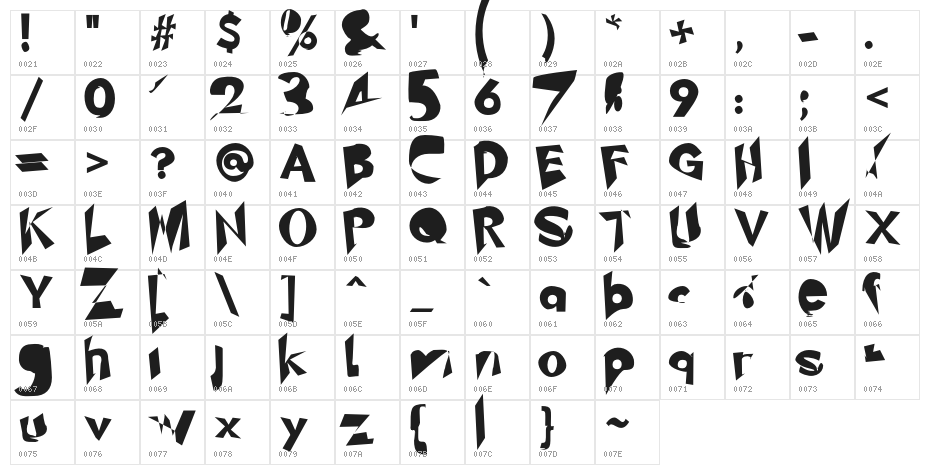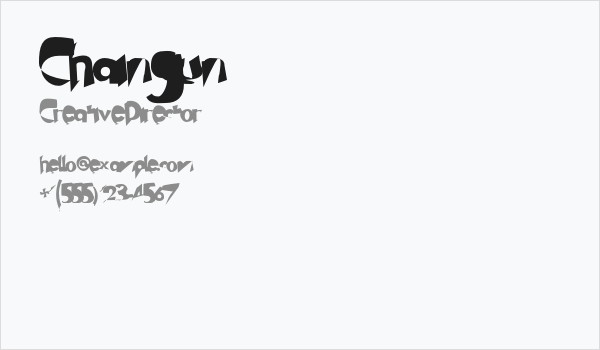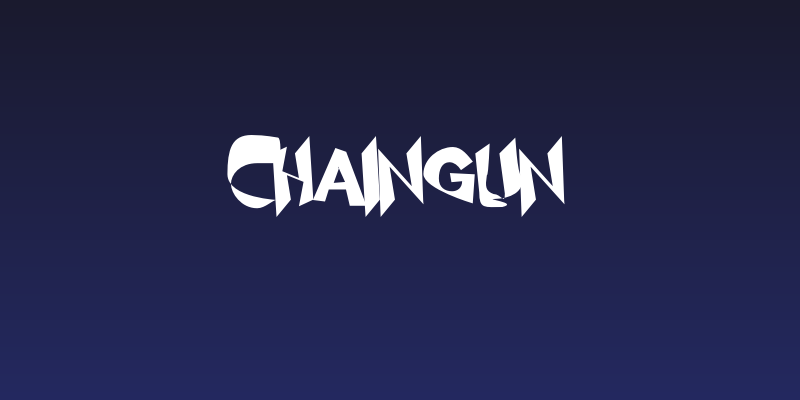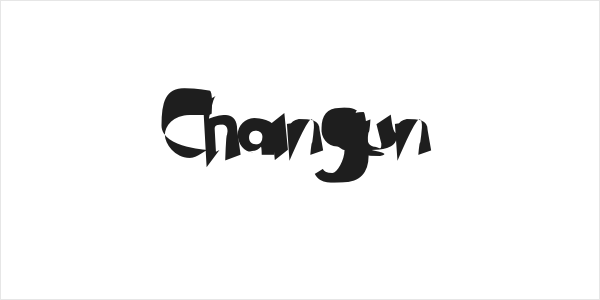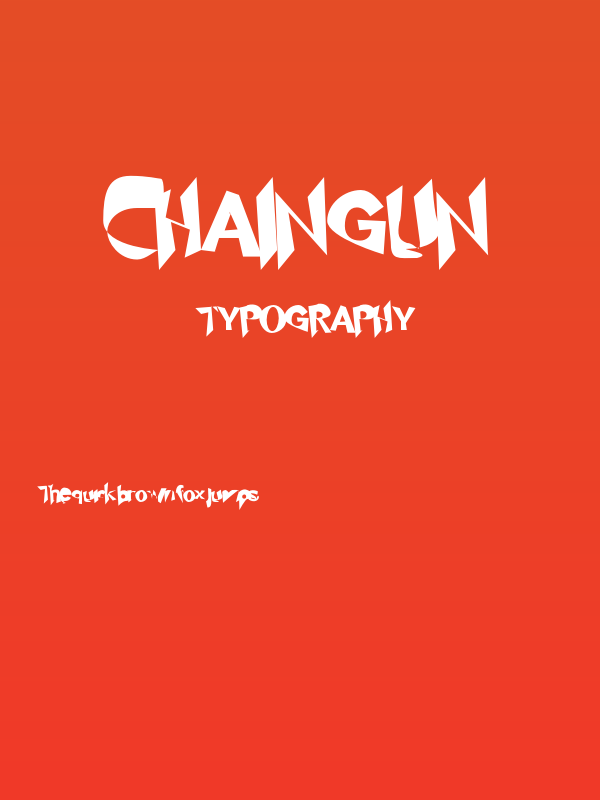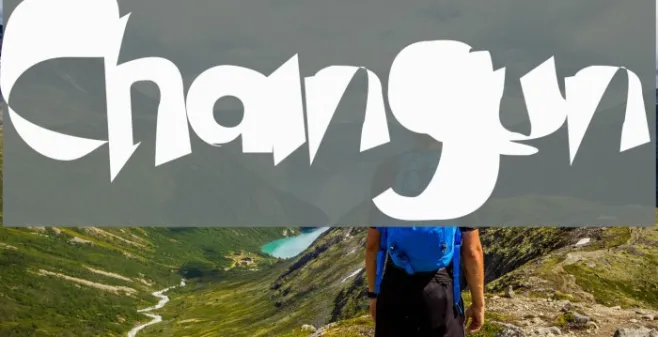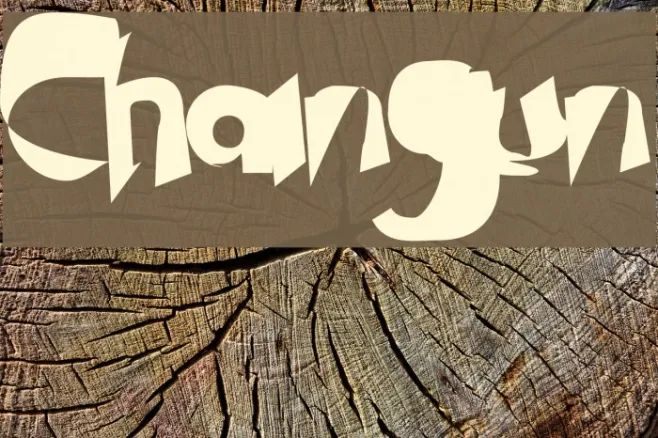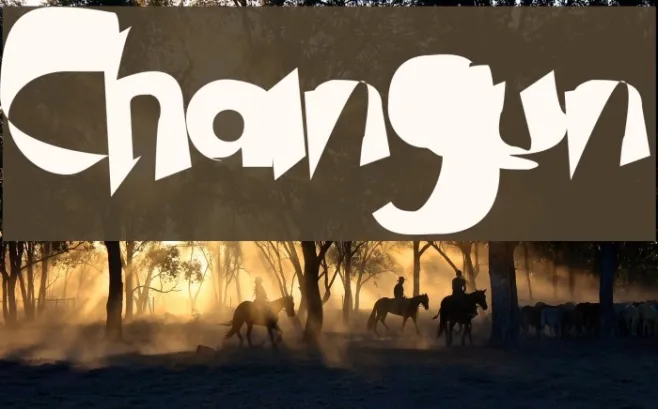
Chaingun Font
Chaingun Description
This font features a highly stylized and jagged appearance, with each character exhibiting sharp angles and irregular shapes. The design is bold and dynamic, creating a sense of movement and energy. The uppercase and lowercase letters maintain a consistent chaotic style, while the numbers and special characters follow suit with their own unique distortions. This font is visually striking and commands attention, making it ideal for projects that require a strong visual impact.
CHAINGUN UPPERCASE
CHAINGUN LOWERCASE
CHAINGUN OTHER CHARS
| Overall Style | Modern, Edgy |
| Proposed Projects | Perfect for edgy posters, album covers, video game graphics, and any project needing a bold statement. |